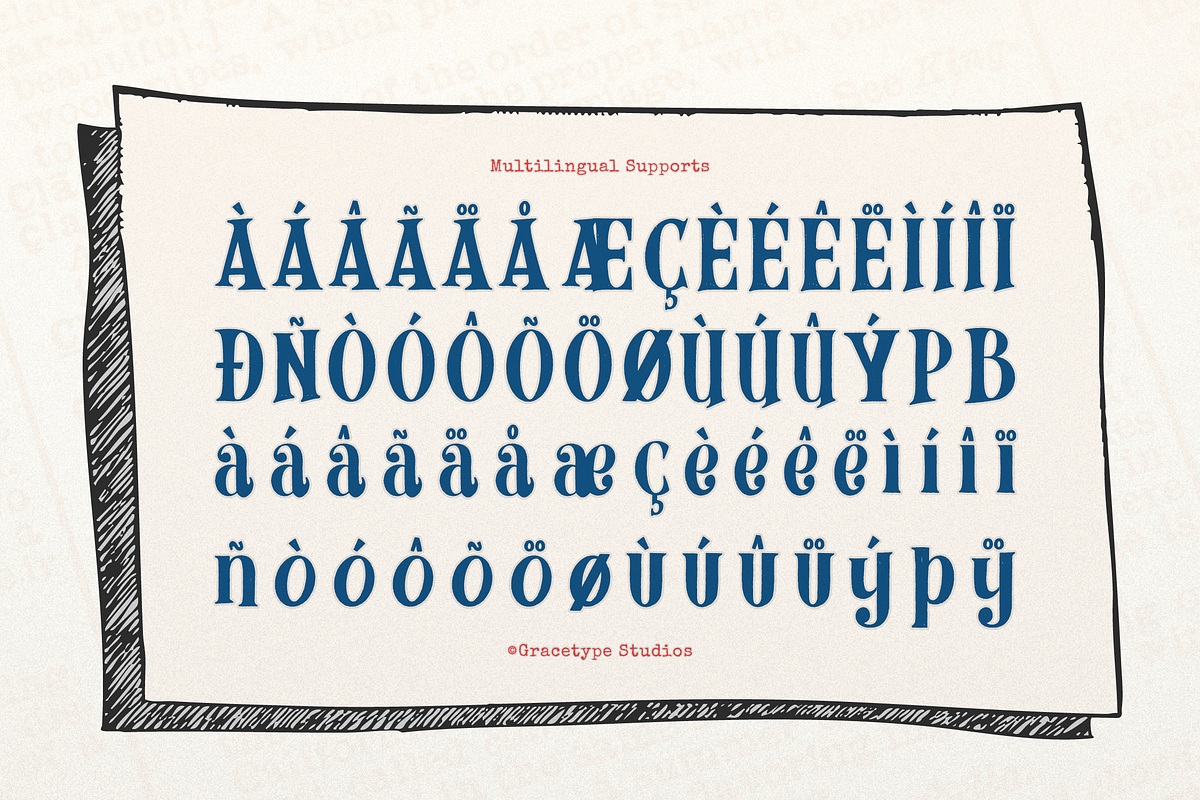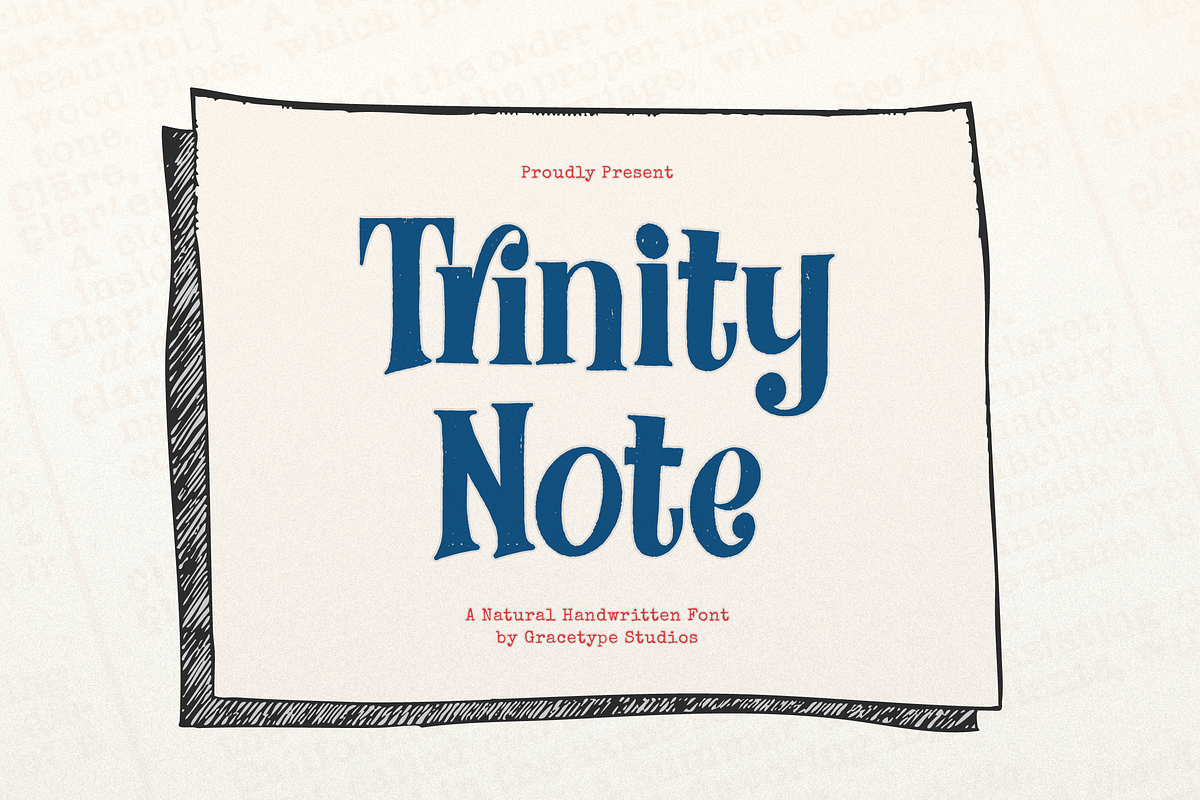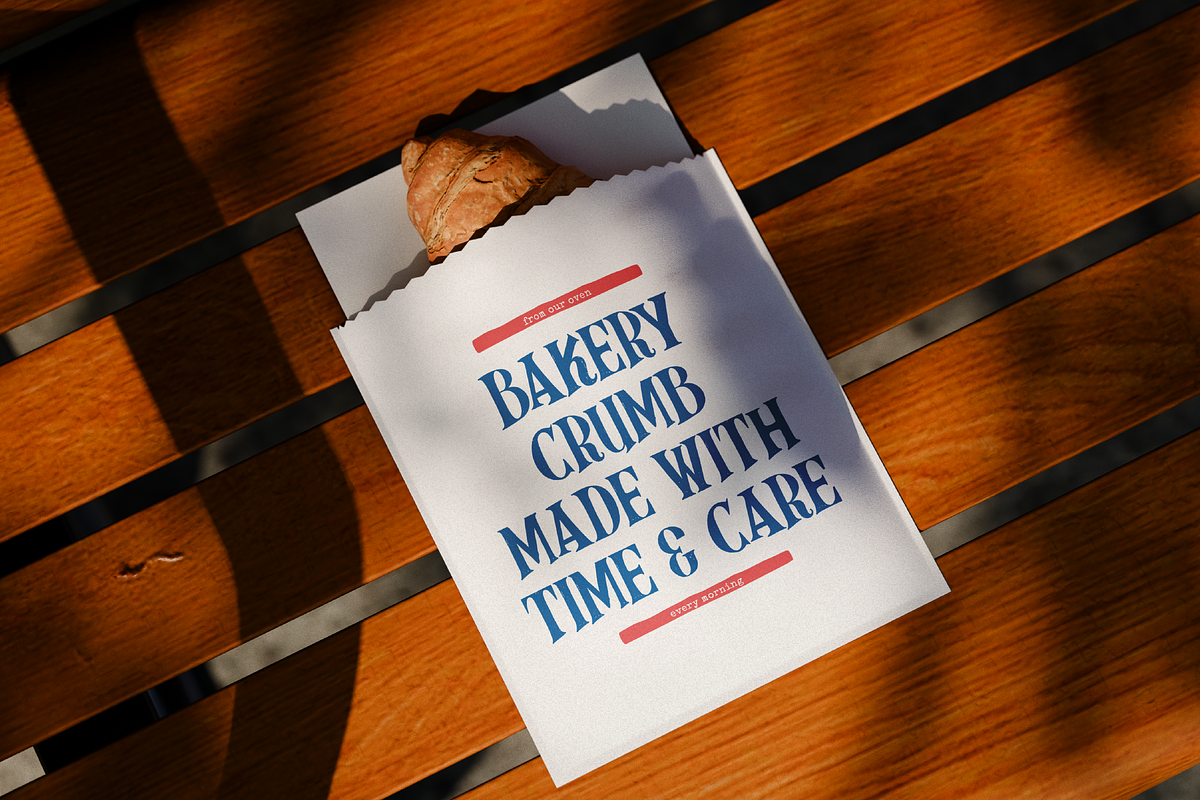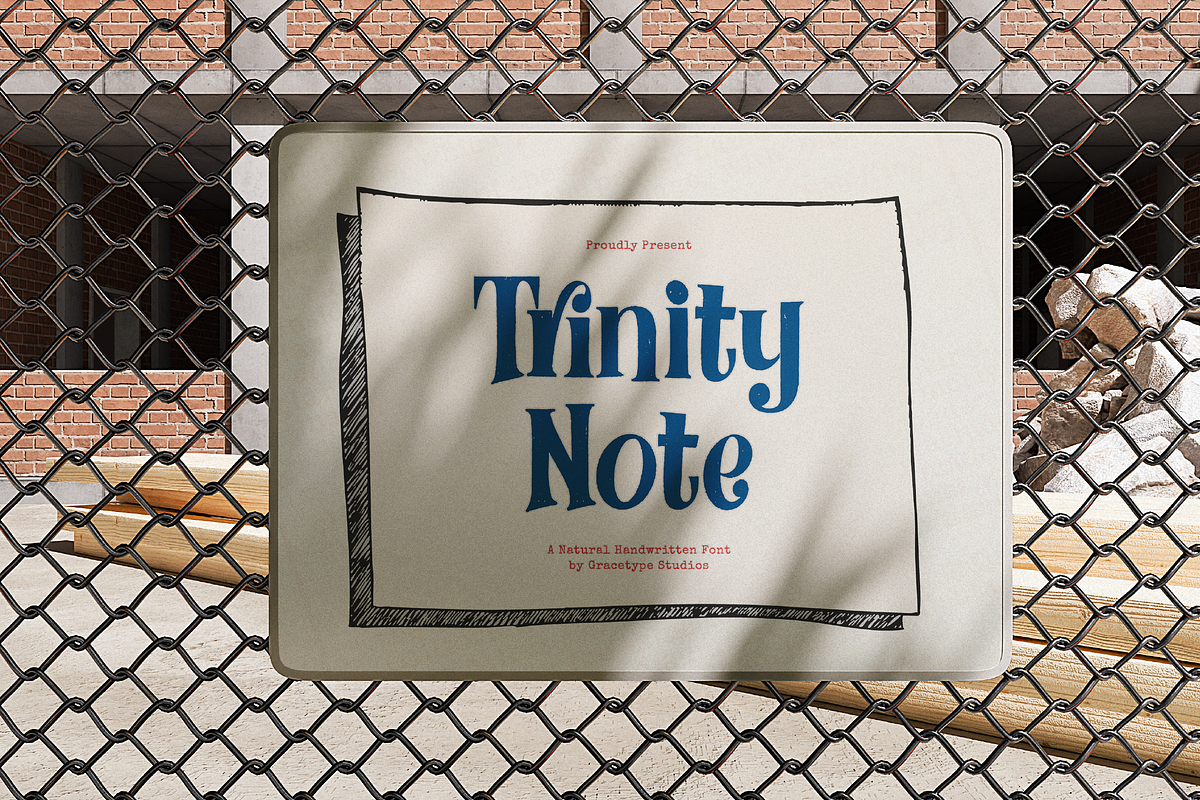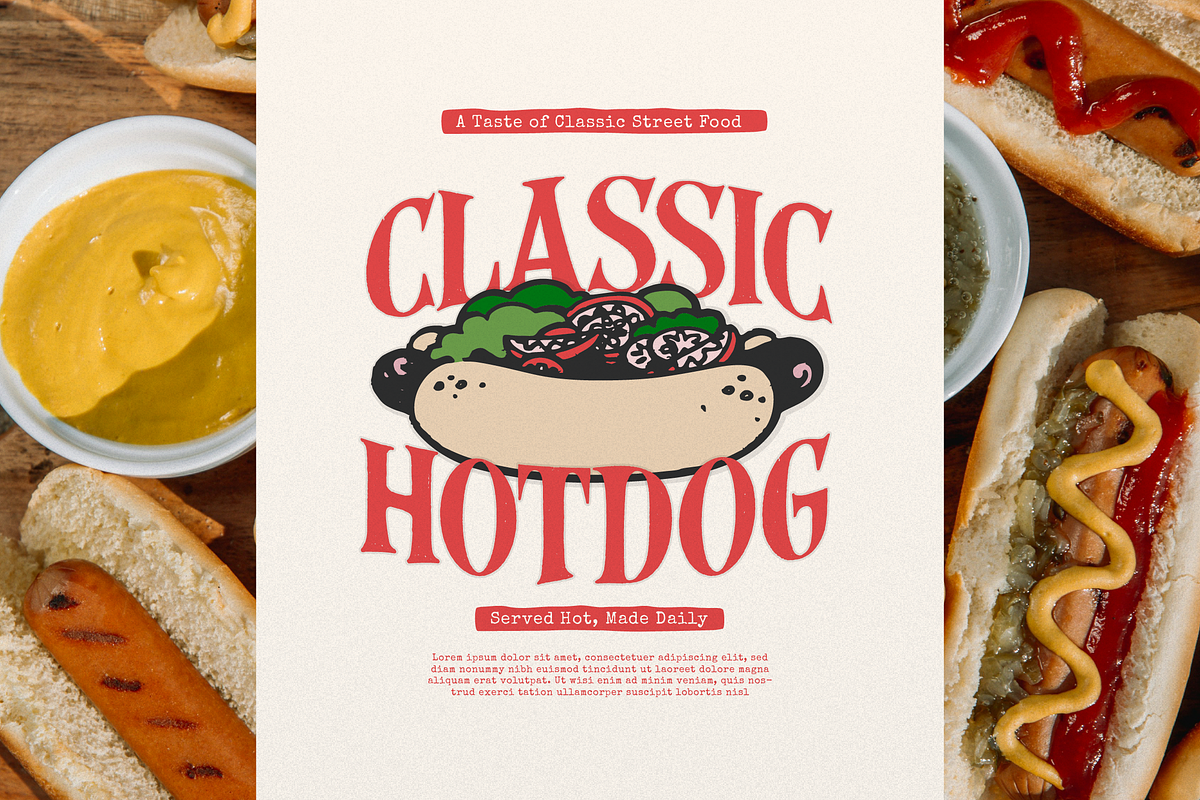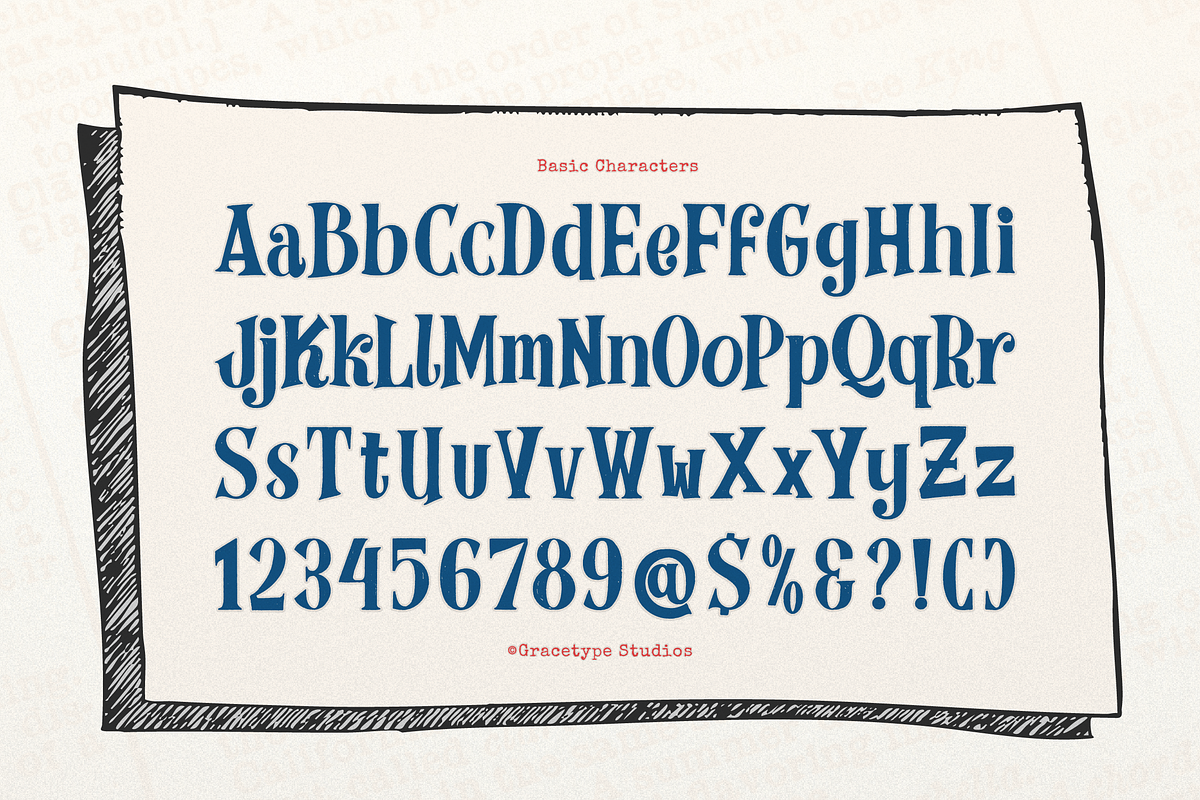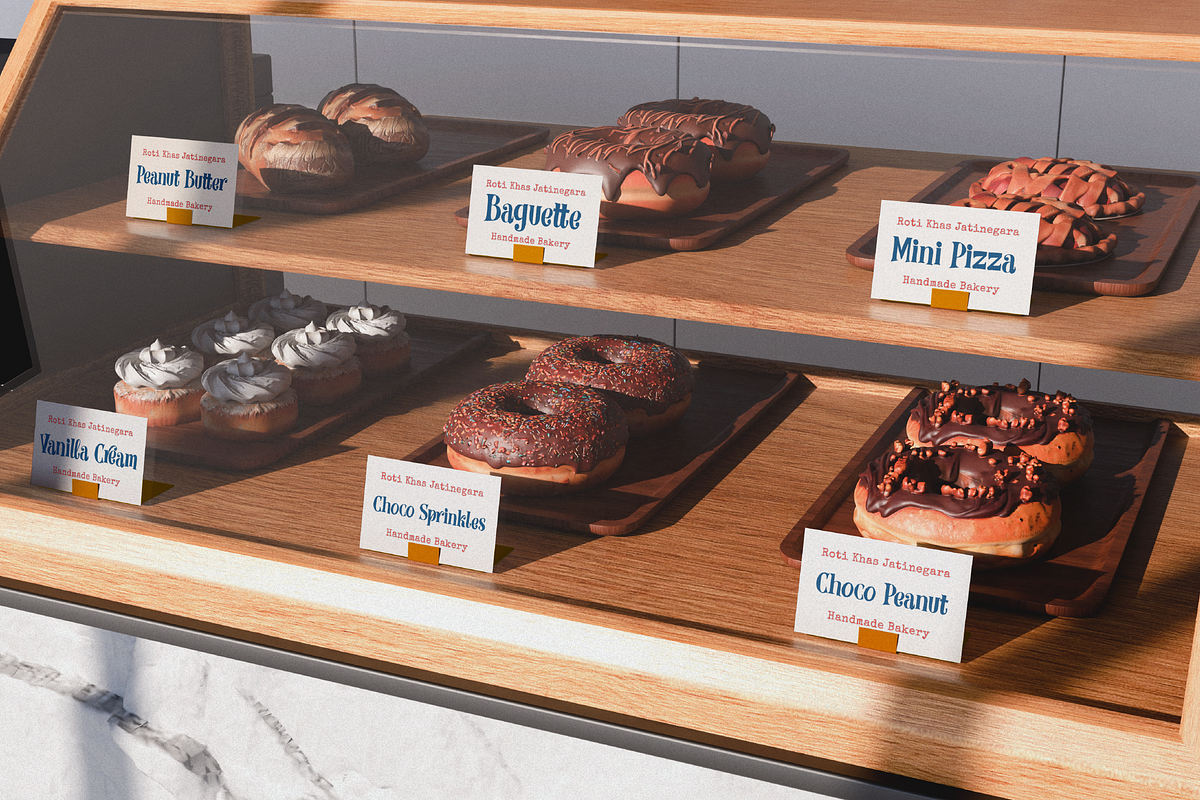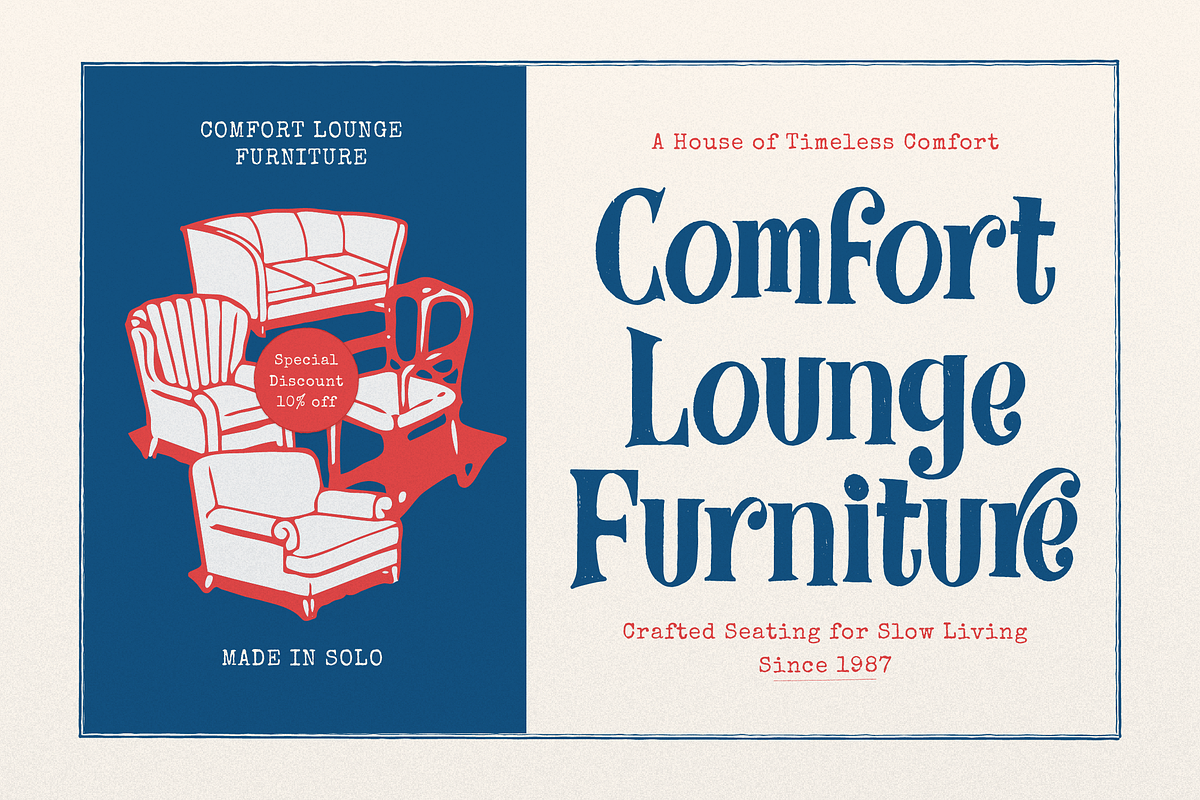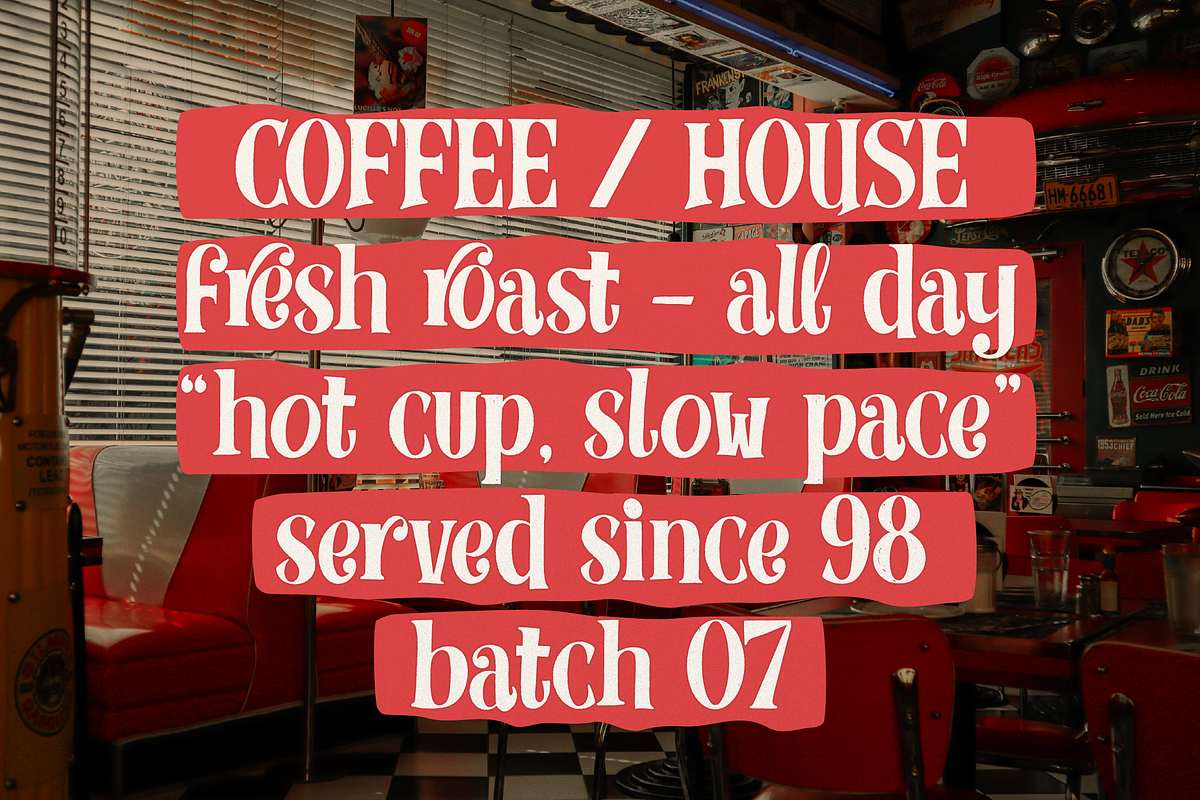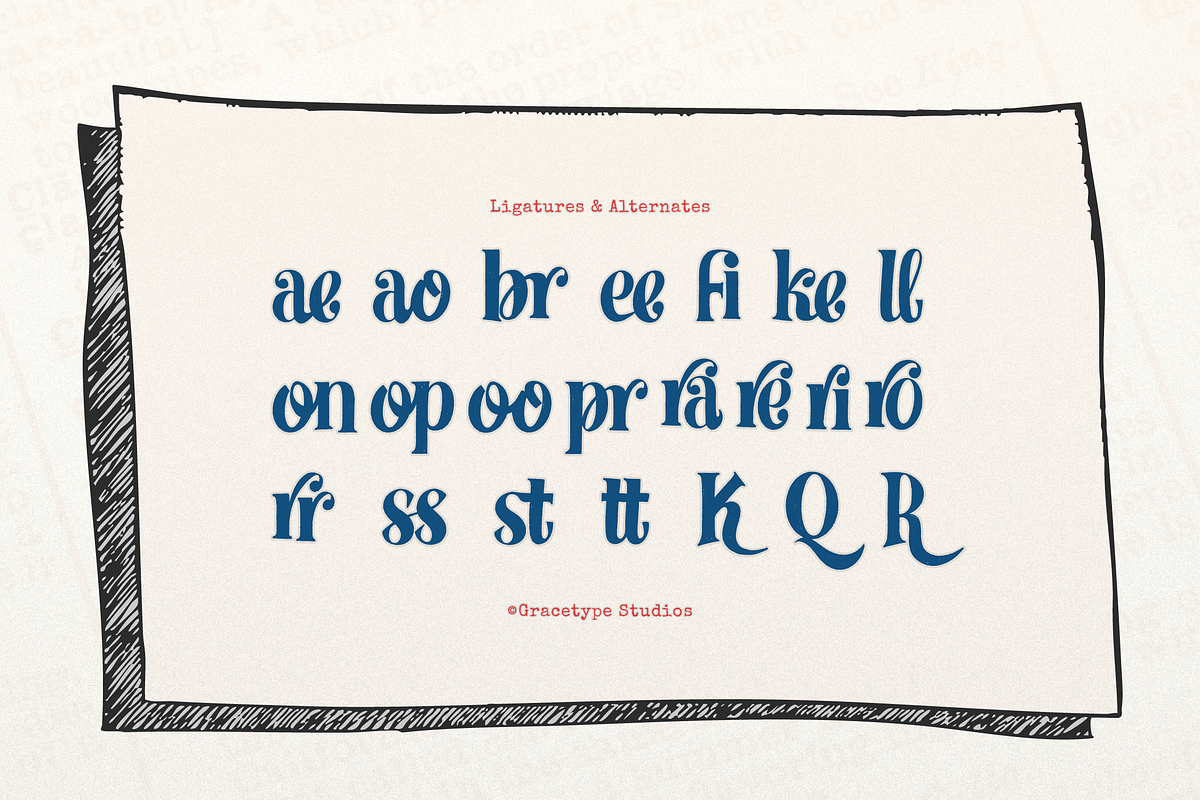
Trinity Note | Natural Handwritten
Trinity Note | Natural Handwritten Font, from Gracetypestudio, suitable for any projects such as: logos, branding projects, homeware designs, product packaging, mugs, quotes, posters, shopping bags, t-shirts, book covers, name card, invitation cards, greeting cards, label, photography, watermark, special events, and all your other lovely projects that need a Hand Drawn taste.